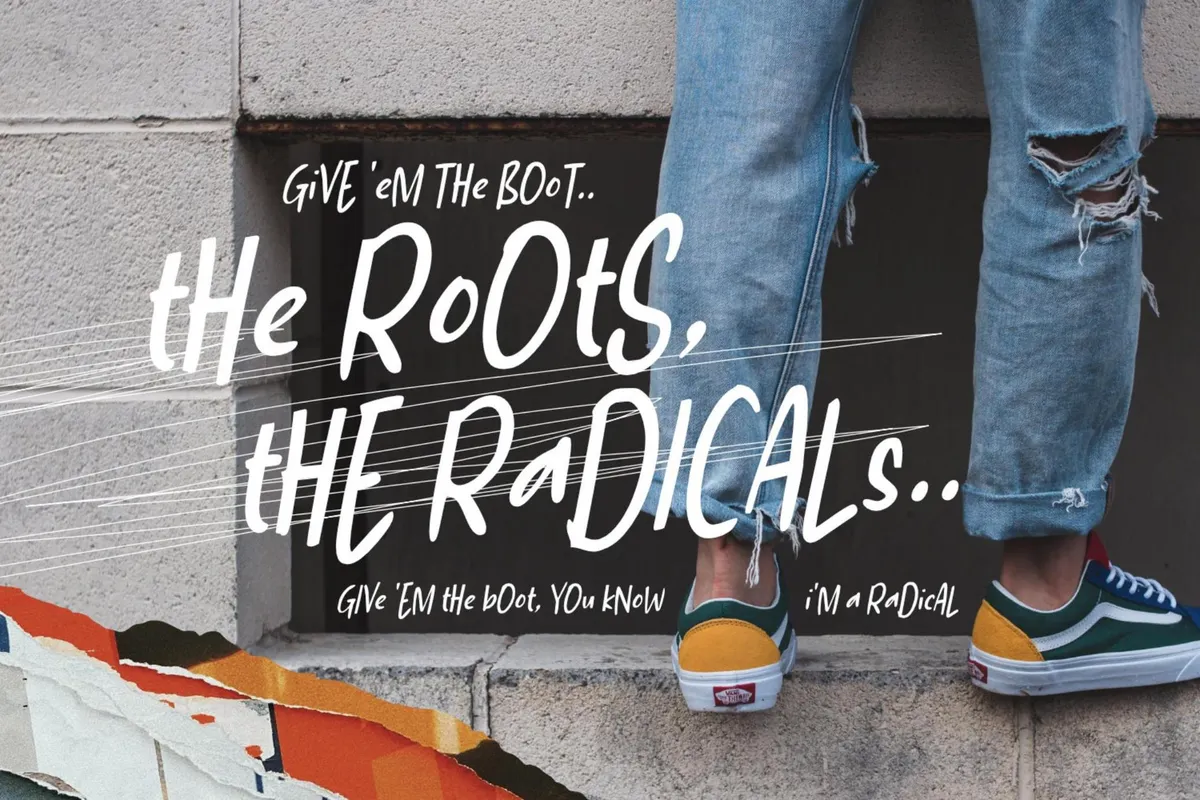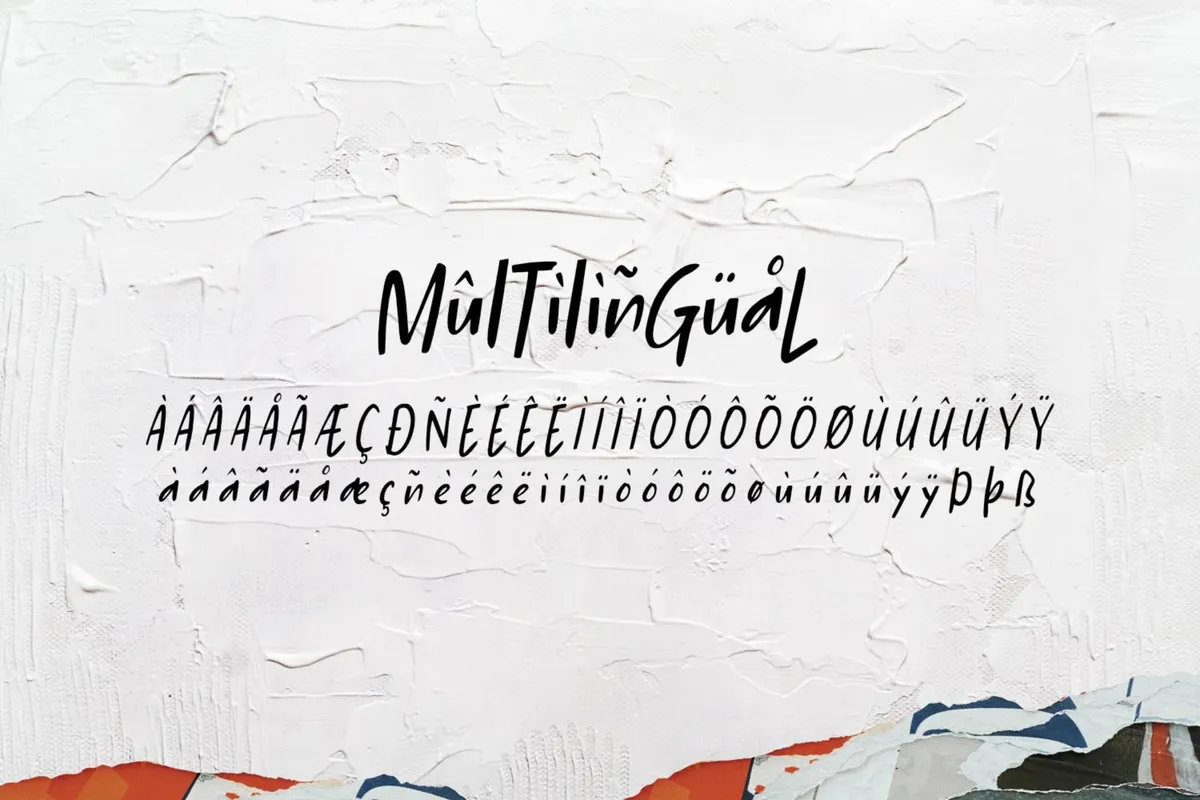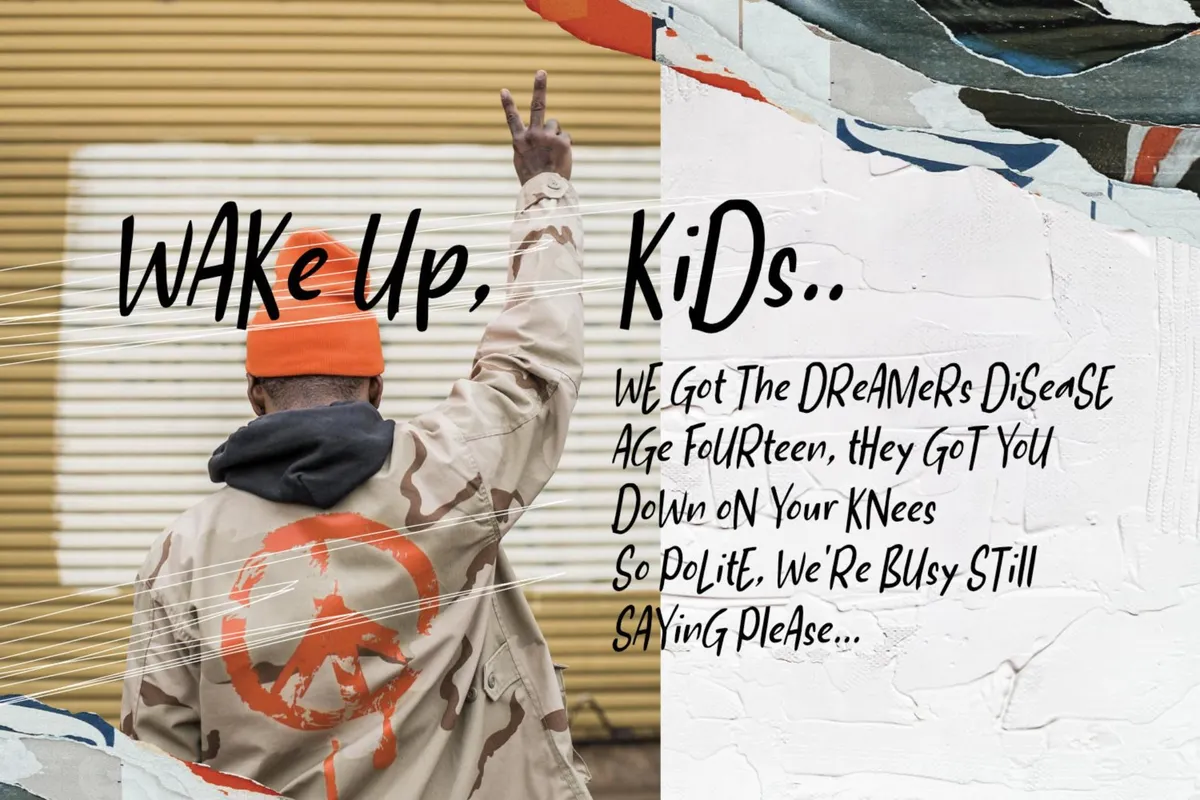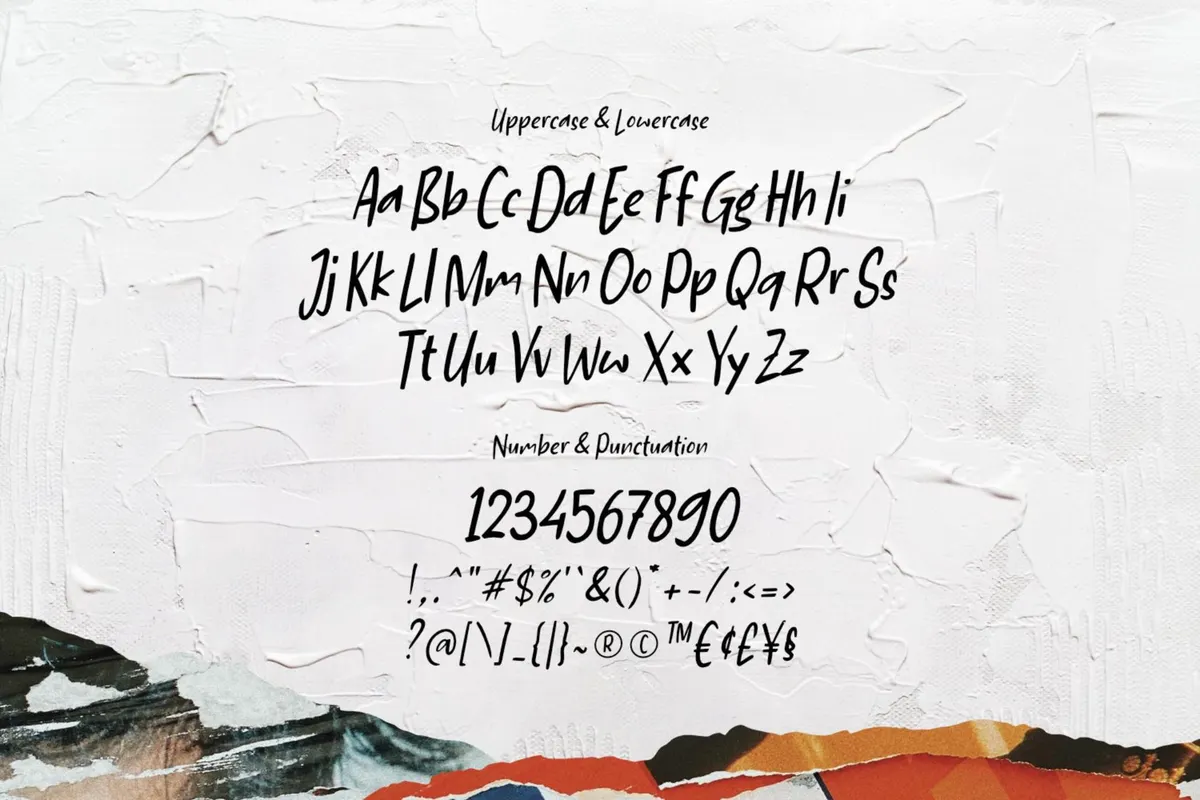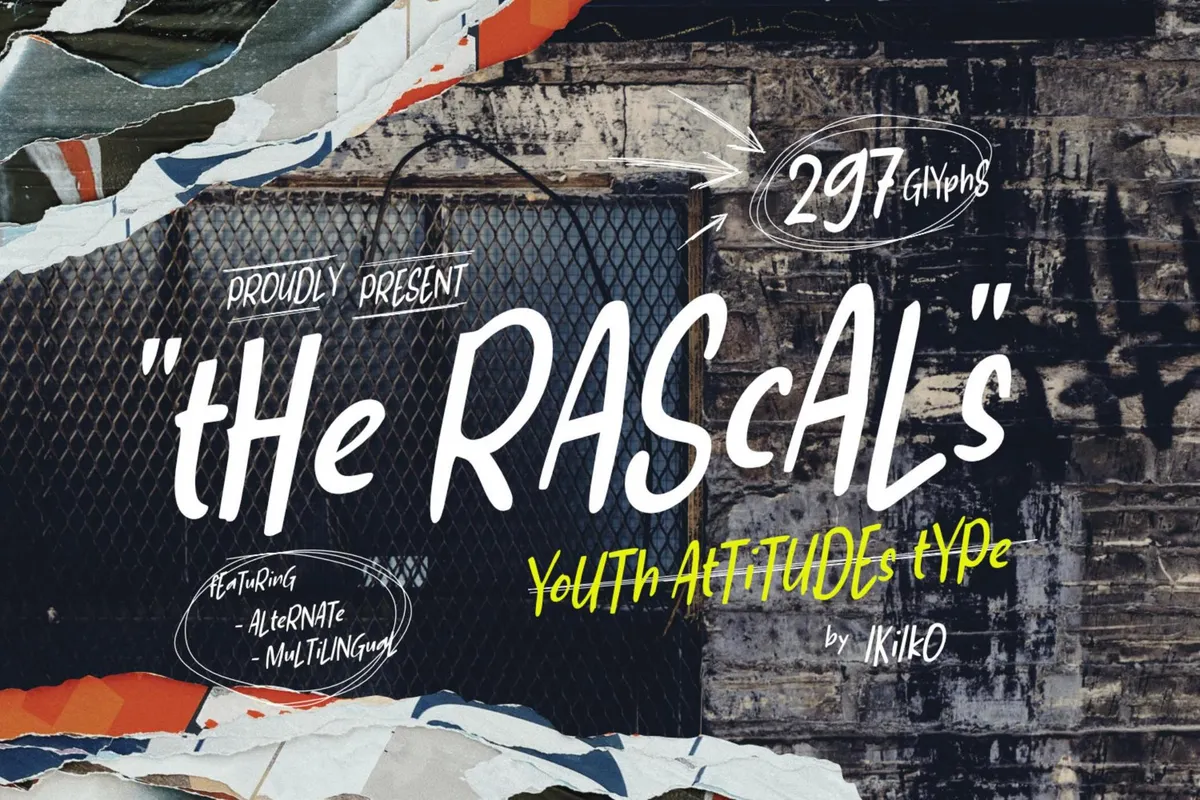
The Rascals - Youth Font
Is a raw brush type, with the mood of young & wild. You can play with uppercase and lowercase letters to get the character you want. This typeface is perfect for an event poster, magazine cover, hipster fashion brand, t-shirt, tote bag, quotes, or stylish text overlay to any background image.
• Number & Punctuation
• Alternates